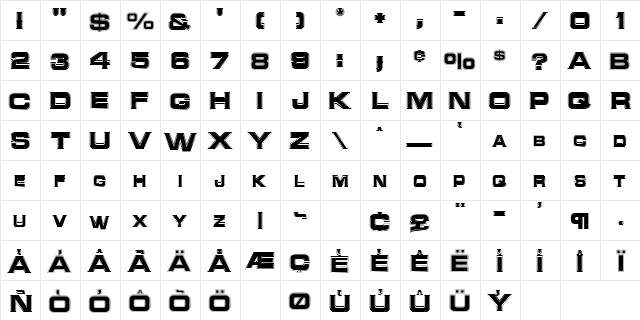
NCCINLINE Regular
Design Context for NCCINLINE Typeface
NCCINLINE brings ornamental detail and strong personality to headlines and identities, where visual impact matters more than quiet functionality.
Font Pairing: Pair with a clean neutral sans-serif for body copy to let NCCINLINE's character lead without overwhelming the composition.
Pro Tip: Use NCCINLINE exclusively at display sizes — it was designed to be seen, not read at length. Let a neutral companion handle body copy.